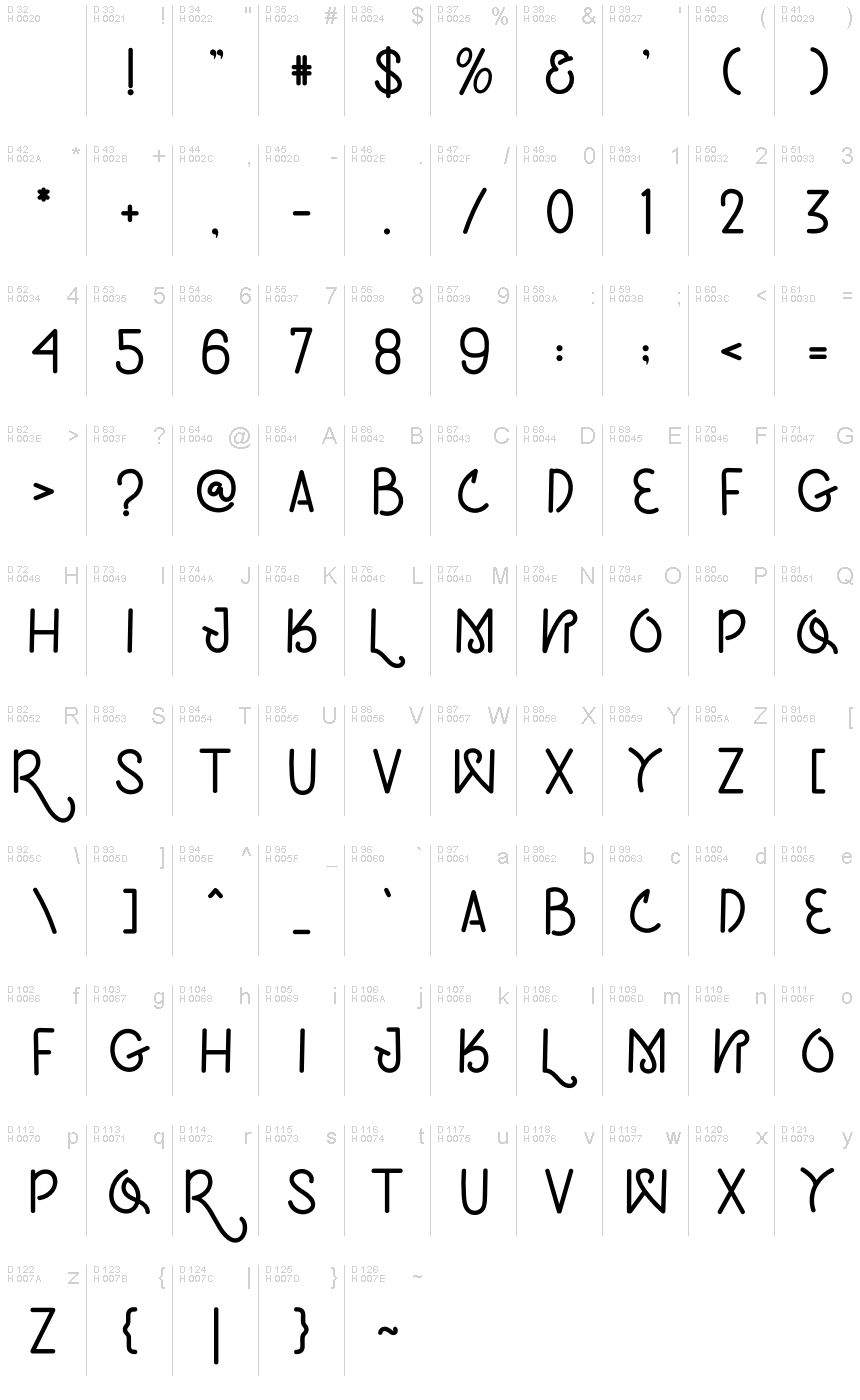
GROUND ATLANTIS
Ground Atlantis, crafted by Inermedia Studio, stands as a captivating display font with a semi-light weight that exudes a blend of elegance and whimsy. Its flowing curves and playful serifs give it a unique aesthetic that is both visually appealing and strikingly versatile. This font breathes life into words, transforming text into an artistic statement.
The distinctive style of Ground Atlantis makes it an excellent choice for design projects that aim to make an impression. Whether it's branding, editorial work, or creative advertising, this font's balance of classic refinement and contemporary flair enables designers to convey messages with personality and sophistication. Ground Atlantis invites audiences into a realm where type isn't just seen but experienced, ensuring that any project it graces will stand out with its own story to tell.